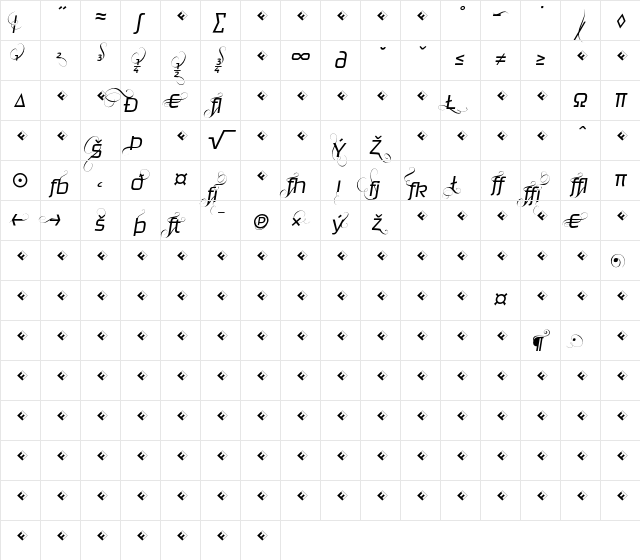
Ginger-LightFlamboyantExp Regular
Design Context for Ginger-LightFlamboyantExp Typeface
Ginger-LightFlamboyantExp offers clean, dependable letterforms without strong stylistic allegiance, making it a practical choice for designers who need flexibility. Its slender proportions lend an understated elegance to any composition.